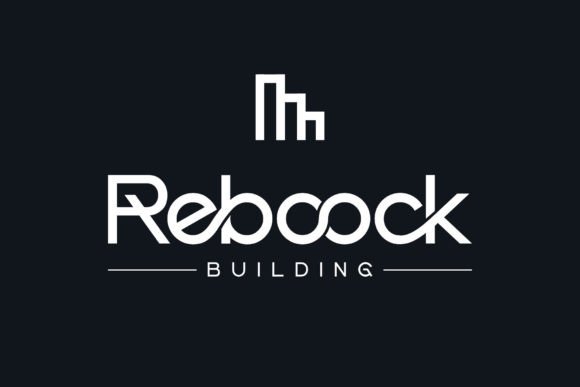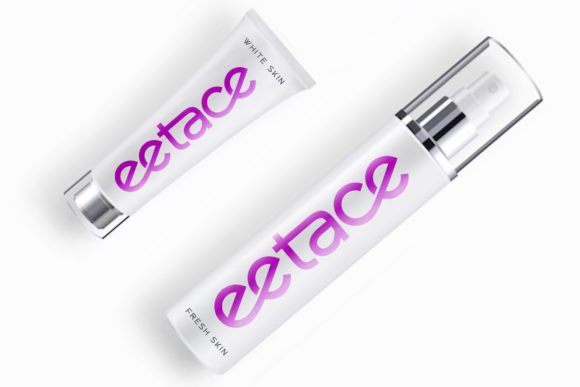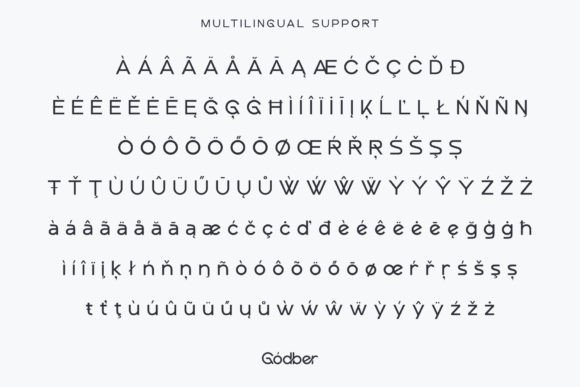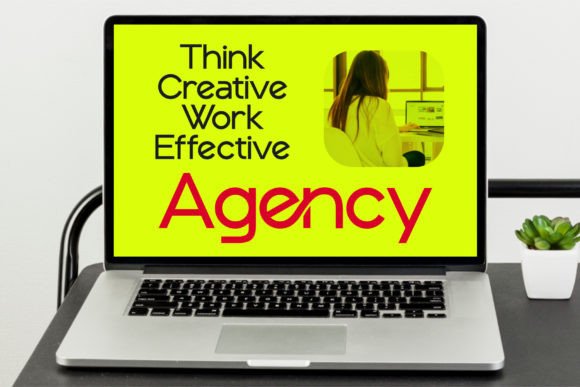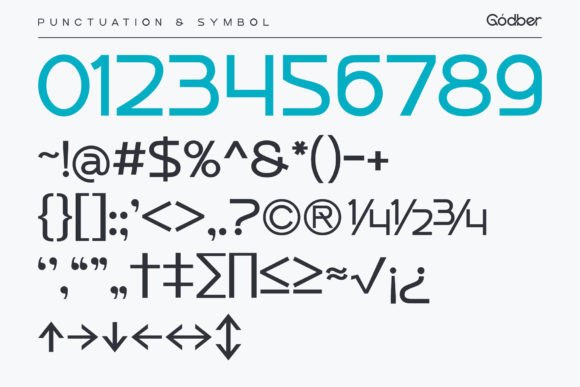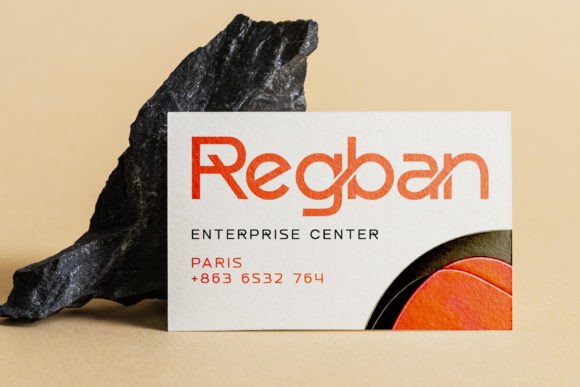
Introducing Godber Font: Elevate Your Brand’s Presence with Bold and Captivating Typography
In the world of design, typography plays a crucial role in shaping a brand’s identity. A well-crafted font can instantly elevate a brand’s presence, making it more memorable and engaging. Meet Godber, a bold and captivating font designed to help your brand stand out in a crowded market. With its clean lines and dynamic aesthetics, Godber is perfect for crafting modern, attention-grabbing logos that leave a lasting impression.
The Godber Font: A Perfect Blend of Style and Substance
Godber is more than just a font – it’s a design statement. Its bold and confident style is perfect for brands looking to make a statement and assert their presence. The font’s clean lines and geometric shapes create a sense of modernity and sophistication, making it ideal for brands that want to appear fresh and contemporary.
One of the key features of Godber is its versatility. The font comes in a range of weights and styles, allowing designers to experiment with different looks and feels. Whether you’re creating a logo, headline, or body text, Godber has the flexibility to adapt to your design needs.
Why Choose Godber Font?
So, what sets Godber apart from other fonts? Here are just a few reasons why designers and crafters are falling in love with this captivating font:
- Unique and Memorable: Godber’s bold and dynamic design makes it instantly recognizable. Use it to create a logo or headline that grabs attention and stays in people’s minds.
- Clean and Modern: The font’s clean lines and geometric shapes give it a fresh and contemporary feel. Perfect for brands that want to appear modern and forward-thinking.
- Versatile: Godber comes in a range of weights and styles, making it suitable for a wide range of design applications.
- Ease of Use: Godber is easy to read and works well in both digital and print formats.
How to Use Godber Font in Your Designs
Godber is an incredibly versatile font that can be used in a variety of design applications. Here are a few ideas to get you started:
- Logos: Use Godber to create a bold and attention-grabbing logo that sets your brand apart.
- Headlines: Godber is perfect for headlines and titles, adding a touch of drama and flair to your text.
- Branding: Use Godber consistently across your brand’s marketing materials to create a cohesive and recognizable visual identity.
Tips for Pairing Godber with Other Fonts
While Godber is stunning on its own, it can also be paired with other fonts to create a unique and harmonious design. Here are a few tips for pairing Godber with other fonts:
- Contrast: Pair Godber with a more delicate font to create contrast and add visual interest.
- Complementary Styles: Choose a font with a similar style or aesthetic to Godber to create a cohesive look.
- Experiment: Don’t be afraid to try out different font combinations to see what works best for your design.
In conclusion, Godber is a bold and captivating font that’s perfect for designers and crafters looking to elevate their brand’s presence. With its clean lines, dynamic aesthetics, and versatility, Godber is an excellent choice for crafting modern, attention-grabbing logos and marketing materials. Whether you’re a seasoned designer or just starting out, Godber is a font that’s sure to inspire your creativity and help your brand stand out.